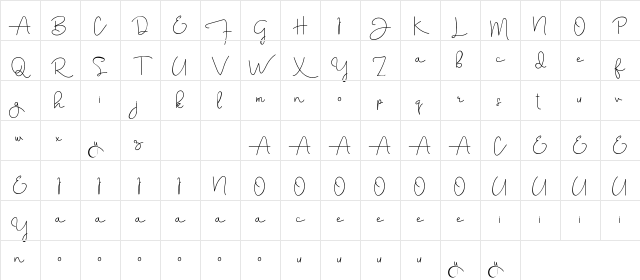
Aghnestademo Regular Free Font
Aghnestademo Regular
Designer: saila nurissalma
Design Context for Aghnestademo
Aghnestademo is a composed and adaptable typeface that performs quietly and consistently across a wide range of design contexts.